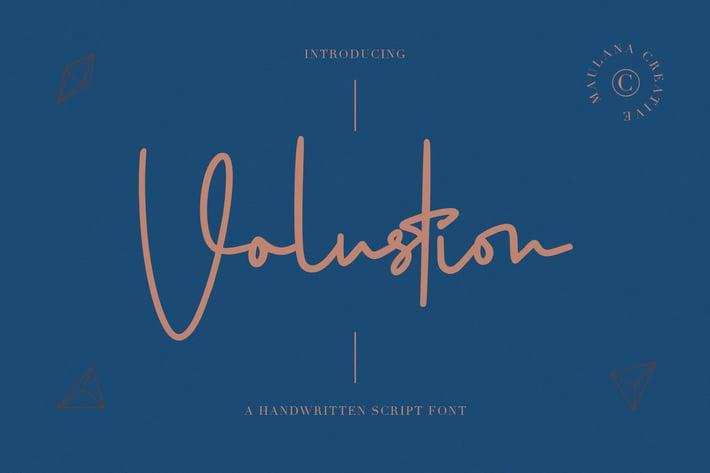
Volustion Handwritten Script Font
Give your designs an authentic handcrafted feel. "Volustion Handwritten Script Font" is perfectly suited to signature, stationery, logo, typography quotes, magazine or book cover, website header, clothing, branding, packaging design and more. Included 2 Font, Regular and Alternate.